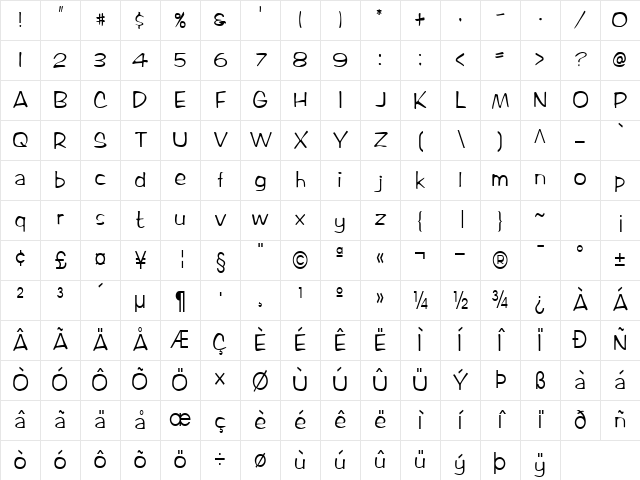
NeedFulThings12 Regular
Design Context for NeedFulThings12
NeedFulThings12 is a composed and adaptable typeface that performs quietly and consistently across a wide range of design contexts. Its slender proportions lend an understated elegance to any composition.